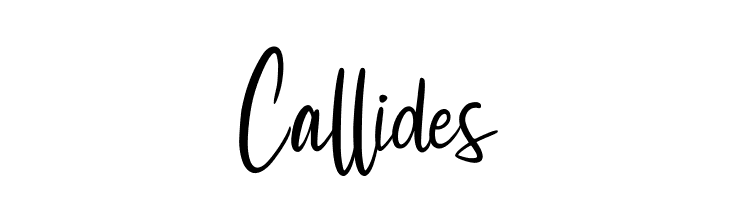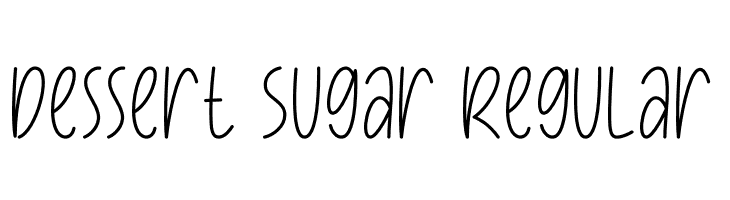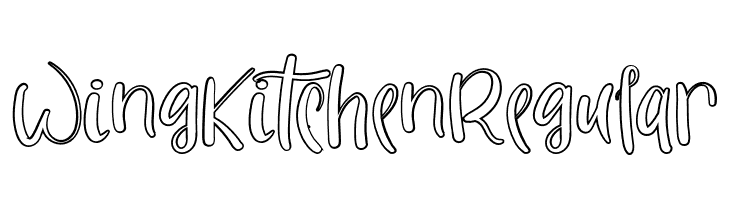
A playful, handwritten font with rounded, flowing lines and a whimsical style.
A whimsical, artistic script font with flowing, interconnected letters.
A dynamic handwritten font with fluid, expressive strokes and a playful tilt.
A modern, italic, outlined font with geometric shapes and a bold, futuristic style.
A bold, hollow, inverse font with a modern and geometric style.
A sleek, ultra-light sans-serif font with a modern and minimalist design.
A modern, elegant script font with flowing, handwritten style.
A modern sans-serif italic font with consistent stroke thickness and a dynamic slant.
An elegant, flowing script font with intricate swirls and high contrast.
A bold, angular font with a Gothic-inspired design and high contrast strokes.